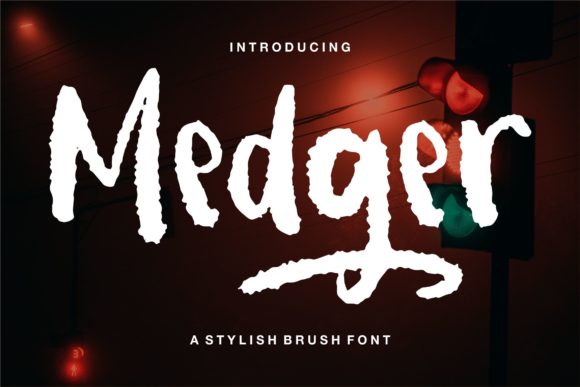
Behold Medger Font, the 2017's showstopper in logo design, brought to you by the visionary font designer, Vunira. This captivating display font exudes an aura of distinction and personality, making it a force to reckon with in the realm of branding and visual identity.
Unleash your creativity and dive into a world of limitless possibilities with Medger Font. Its captivating rough texture and bold strokes invoke a sense of authenticity and rawness that will make your designs stand out from the crowd. Whether you're crafting a striking logo, a powerful headline, or captivating promotional materials, Medger Font is your ultimate weapon for making an indelible impact.
With its extensive PUA encoding, Medger Font empowers you to effortlessly access a treasure trove of glyphs and swashes, opening up a universe of creative possibilities. Say goodbye to limitations and embrace the freedom to express your unique vision.
Step into the spotlight and let Medger Font transform your designs into masterpieces. Its versatility knows no bounds, effortlessly adapting to a symphony of creative projects. From branding and corporate identities to apparel and gaming, Medger Font seamlessly blends into any artistic endeavor, adding a touch of exclusivity and sophistication.
Embark on a voyage of creativity and unleash the allure of Medger Font. Its powerful display nature commands attention, while its intrinsic beauty captivates and enchants. Experience the sheer joy of crafting designs that resonate with your audience, leaving a lasting impression that lingers in their minds long after they've encountered your creations.